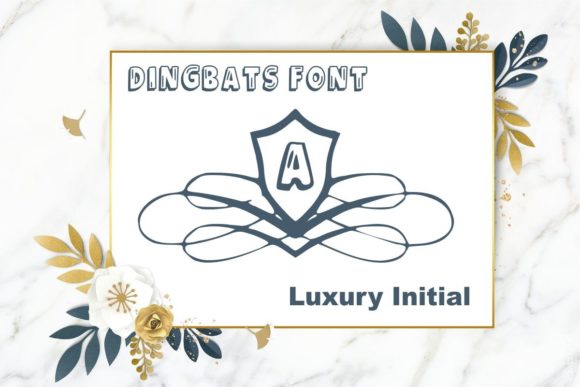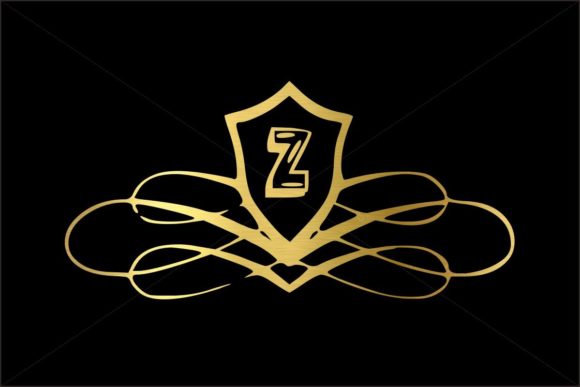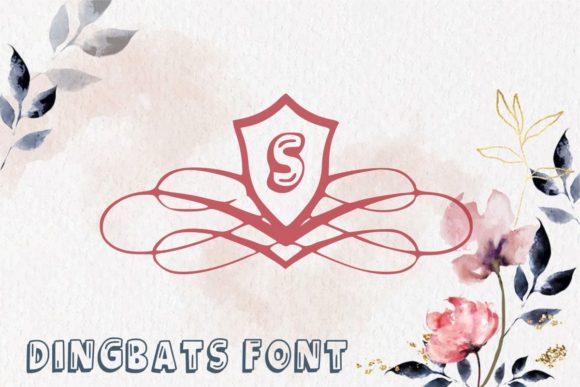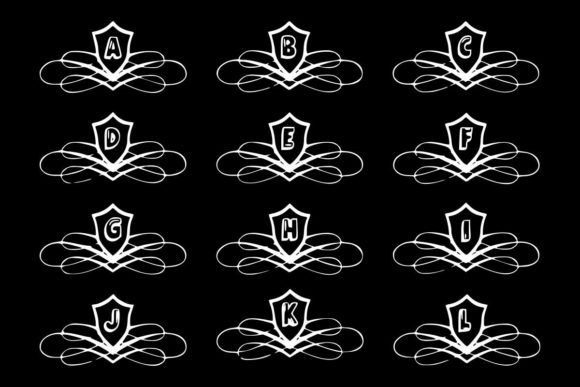
Luxury Initial Font
About Luxury Initial Font
Luxury Initial is an exquisite and captivating dingbats font that brings a touch of elegance and sophistication to your designs. With its collection of luxurious frames, this font is the perfect addition to your fonts’ library, providing endless possibilities to enhance any creation.
The intricate and detailed frames offered by Luxury Initial are designed to add a touch of opulence and refinement to your projects. Whether you’re working on invitations, stationery, branding materials, or any other design that requires a touch of luxury, this font is sure to make a statement. Each frame is carefully crafted with intricate patterns, ornate motifs, and exquisite details, making them a stunning focal point for your designs.
No matter the topic or theme of your project, Luxury Initial has the versatility to elevate and enhance it. From wedding invitations to corporate branding, from high-end packaging to luxurious event materials, this font seamlessly integrates into various design contexts, adding a sense of grandeur and exclusivity.
The appeal of Luxury Initial lies in its ability to transform ordinary text and elements into extraordinary works of art. By incorporating these luxurious frames, you instantly elevate the visual impact of your designs, capturing the attention of viewers and leaving a lasting impression. The attention to detail and the elegant craftsmanship of each frame make Luxury Initial a go-to choice for designers seeking a touch of sophistication and refinement.
Furthermore, Luxury Initial offers a wide range of frame styles, from classic and ornate designs to modern and minimalist aesthetics. This allows you to select the perfect frame that aligns with your project’s tone and style, ensuring a cohesive and visually pleasing result. Whether you prefer intricate flourishes, geometric patterns, or clean lines, Luxury Initial provides a diverse selection to suit your creative vision.
Incorporating Luxury Initial into your designs not only adds a luxurious touch but also conveys a sense of prestige and exclusivity. These frames serve as a visual representation of elegance and sophistication, creating a premium aesthetic that resonates with discerning audiences. By using Luxury Initial, you infuse your designs with a sense of luxury that elevates your brand or project to new heights.